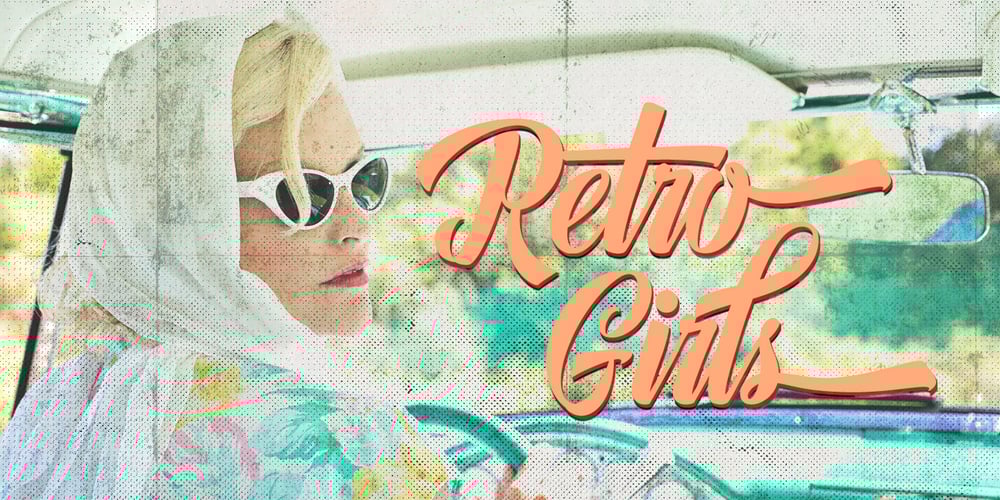
Auntekhno Script
Auntekhno Script font
Auntekhno Script Font Family was designed by Ferry Hadriyan and published by FHFont. Auntekhno Script contains 1 styles and family package options. Auntekhno Script is Vintage Script Brush Font with Hand-lettering Brush Style, and so many OpenType feature include in the font. Suitable for design, element design, weddings, events, t-shirts, logos, badges, stickers, and awesome work, etc…